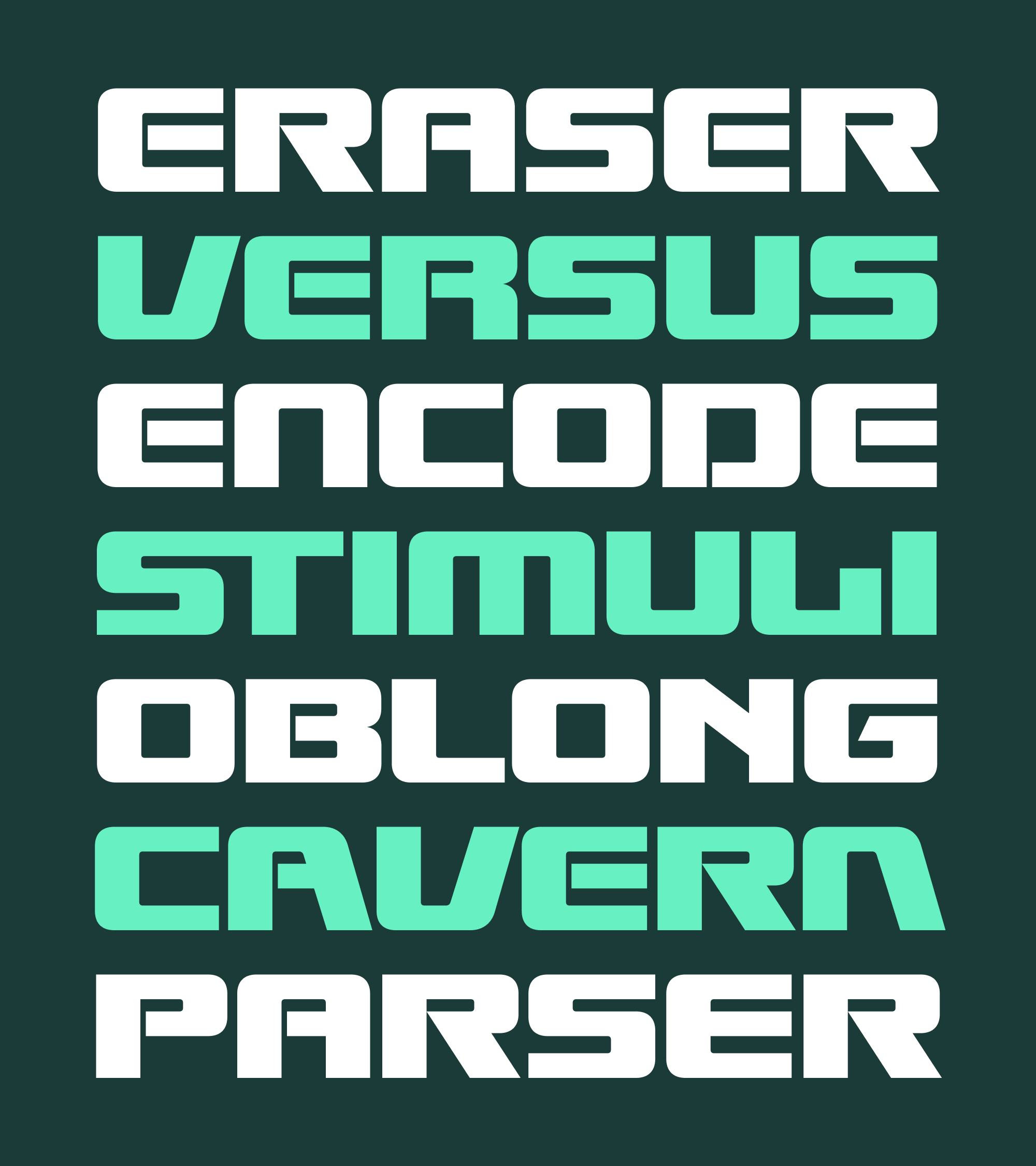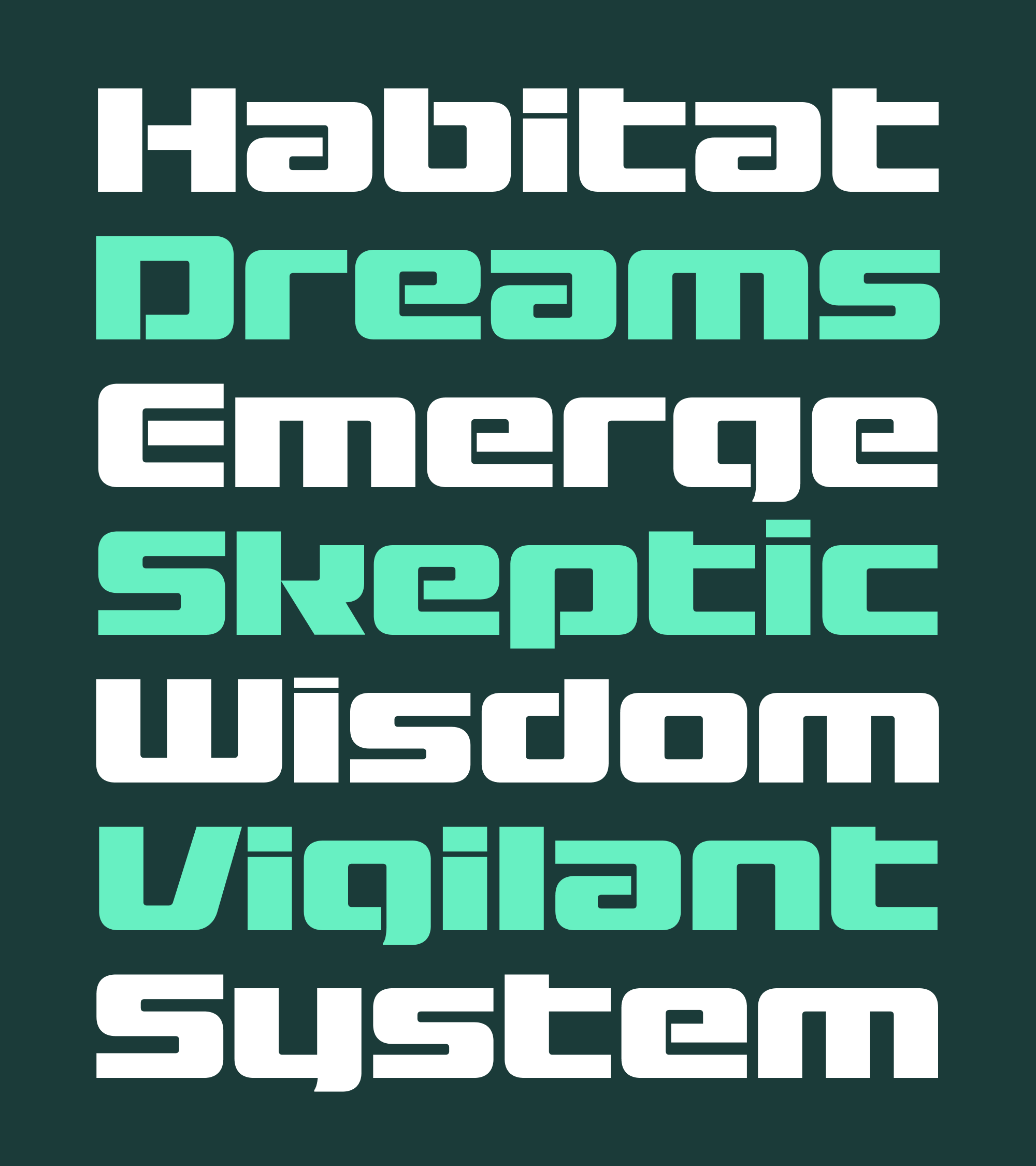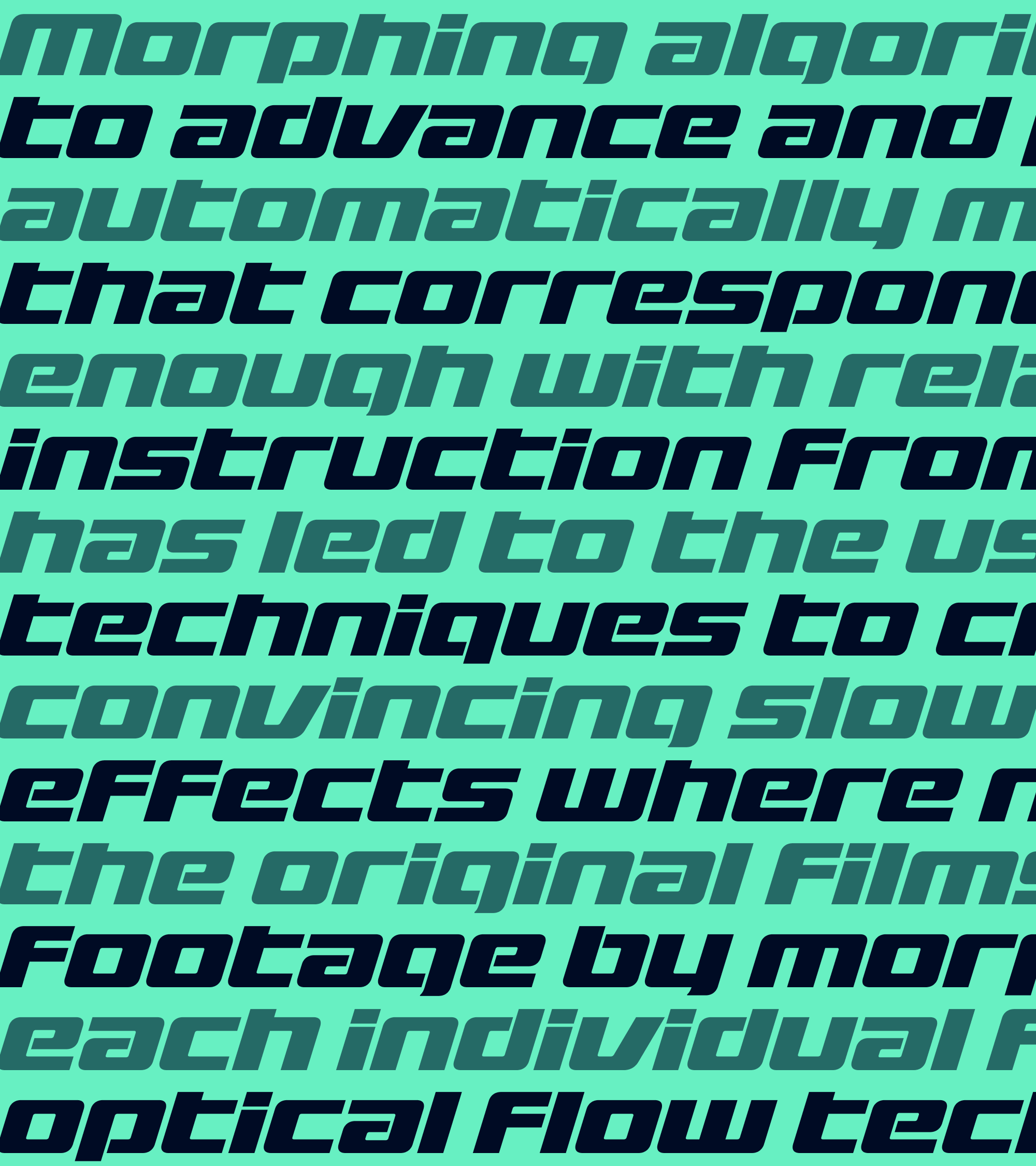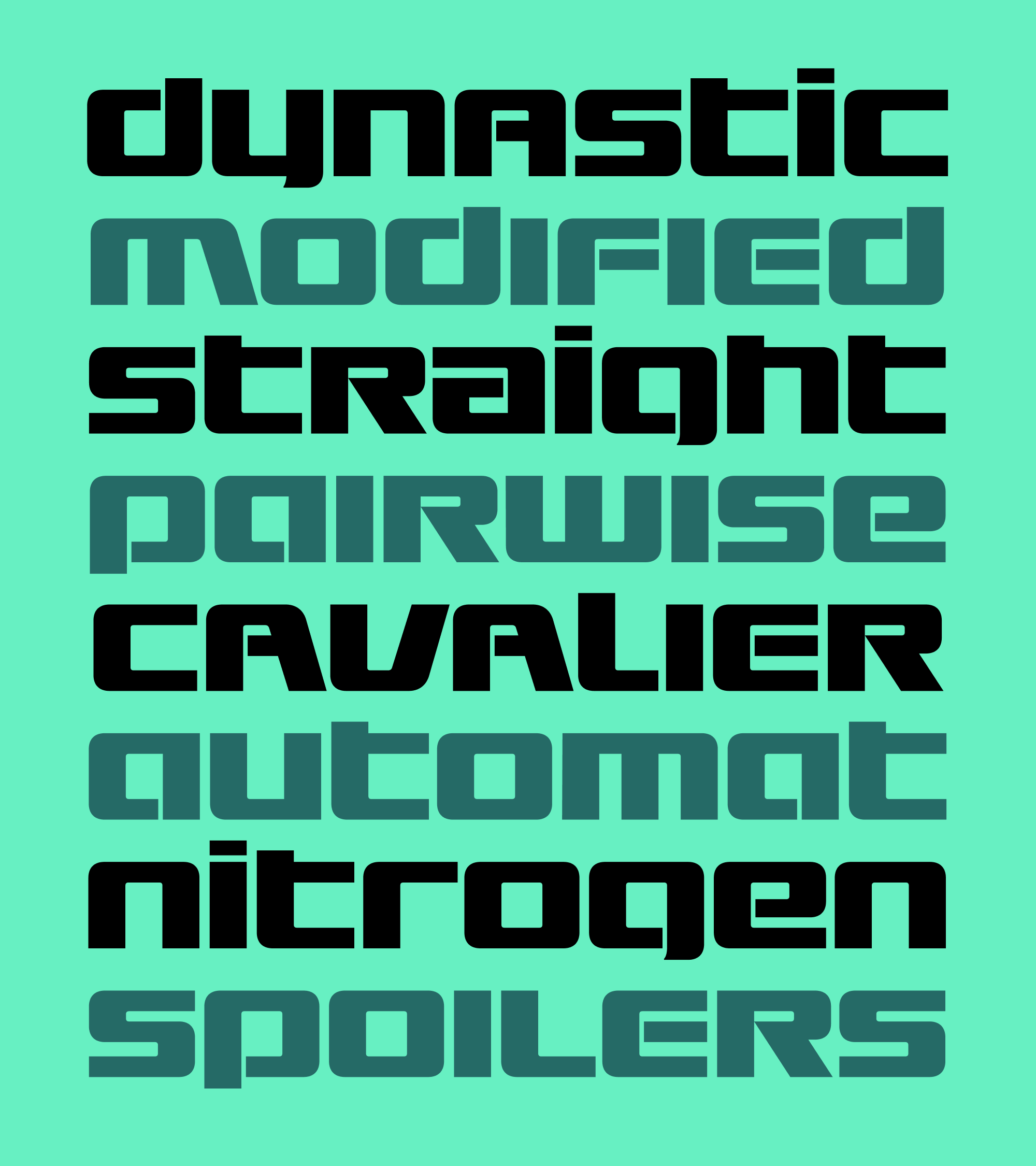
Last month I sent you Megawarp, a sci-fi sans serif centered around the idea of fragmentation. But slicing letters into pieces doubtlessly impacts legibility, and I’ve watched a few people struggle to read the font. So I asked myself…what would happen if I stripped away that central idea, and tried to work from what was left?
The answer is Gigawarp. It’s bold, it’s wide, it’s modular, and in my opinion, it’s still pretty dang fun. It replaces Megawarp’s system of horizontal slices with a reduced set of vertical slices, most apparent on letters like a/e and p/d/b/q. These slices transform letters with counterforms into a single continuous strip, giving the typeface a wormlike quality that has its own precedent in futuristic design.
Corporate Image in the Alphabet Innovations Collection, Vol. 4, 1971. Courtesy of Stephen Coles.
I mentioned Corporate Image in my last mailing, but it’s worth calling out again in the context of wormy fonts. Designed by Roc Mitchell as an open-countered, unicase variant of his typeface Corporate, this typeface acted as a roadmap for me as I charted Gigawarp’s course.
Gigawarp still favors bold blocky forms over Corporate Image’s softened squircles, but I largely followed the way it “wormifies” the letterforms, as well as its general approach to unicase. I also borrowed the subtle small curves that help the legibility of descenders like g, j, and y.
Gigawarp’s unicase is by far my favorite part of the design—it feels both ancient and futuristic at the same time, and I love the ease with which uppercase and lowercase work together. Because of this, I decided that I couldn’t let these shapes simply hide inside OpenType features that folks might never see or use. So I’m including a separate Gigawarp Unicase family where you can access these shapes directly from the keyboard.
Like Megawarp before it, I had absolutely no filter when adding alternates to this typeface—this time I actually maxed out the twenty specified OpenType Stylistic Sets. New entries include sharp-cornered forms for letters like m/n and a/e, raised i/j dots, and a serifed capital I and L to help address the typeface’s Megaflicks problem. (Thanks to Melvian for pointing out this very serious issue!)
I will probably edit these alternates down into something more manageable at some point. But in the meantime, put on your spelunking helmets!
I should have been using my spare time to get a head start on next month’s font, but I couldn’t stop myself from trying out a Cyrillic and Greek for Gigawarp. Both turned out to be fun puzzles to figure out, as I changed the curved E to avoid conflict with Є (like Buckridge) and drew a majuscule М to avoid confusion with Т, which can take on a m-like form in its italic. Jovana Jocić kindly sent some comments on the Cyrillic, but both scripts are still a bit rough and in need of further review.